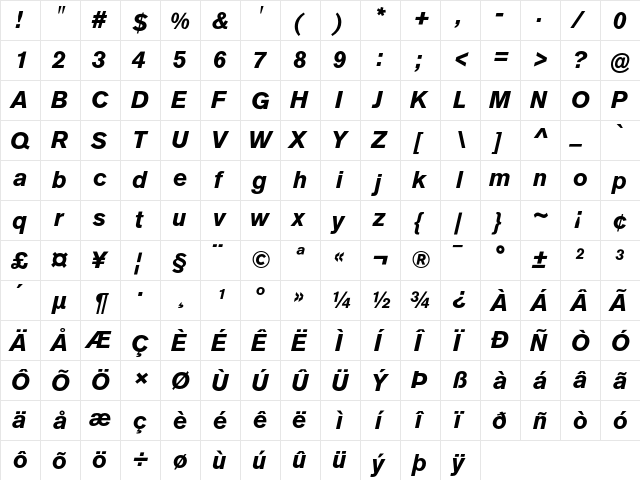
Akzidenz-Grotesk BQ Bold Italic Font Preview
Akzidenz-Grotesk BQ Bold Italic
Akzidenz-Grotesk BQ Bold Italic Font Details
Design Context for Akzidenz-Grotesk BQ Typeface
Akzidenz-Grotesk BQ has the quiet confidence of well-executed sans-serif typography: versatile, unobtrusive, and dependable at any size. The slanted form adds forward momentum and visual energy. The heavy weight commands attention and anchors typographic hierarchies.
Well-suited to navigation labels, product packaging, and anywhere legibility at scale is essential.
Font Pairing: Use Akzidenz-Grotesk BQ for headlines alongside a lighter-weight sans or serif for body copy to establish clear visual hierarchy.
Pro Tip: Use Akzidenz-Grotesk BQ for UI labels, navigation, and short-form body copy where clean legibility is the priority.